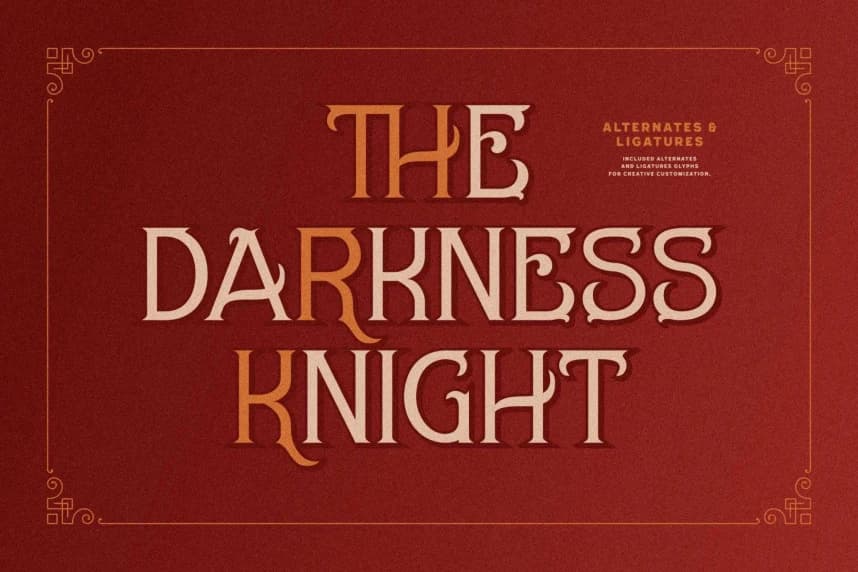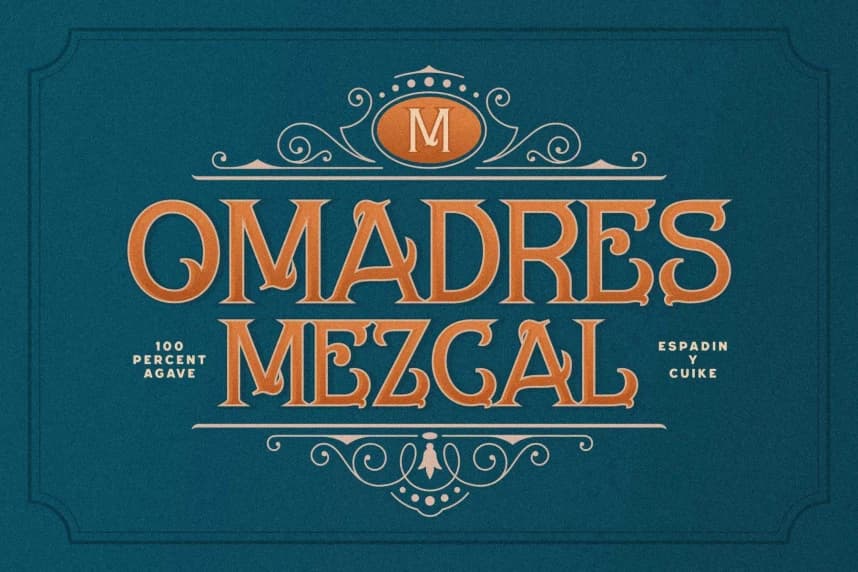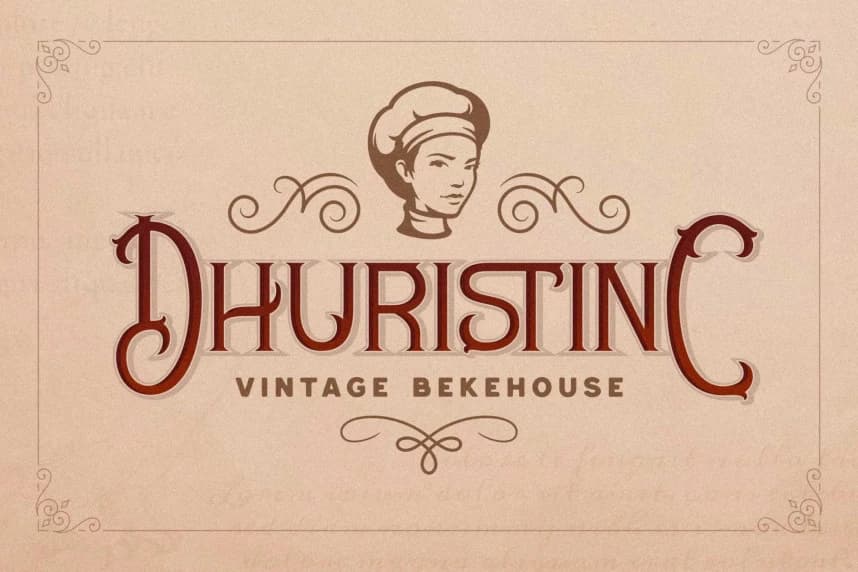
Merisk Font
Merisk Font is a Victorian style ornamental font with distinctive curlicues and vintage charm. Slender, sharp letterforms with decorative deep spiral and bracketed serif, giving every letter a hand tooled, apothecary feel.